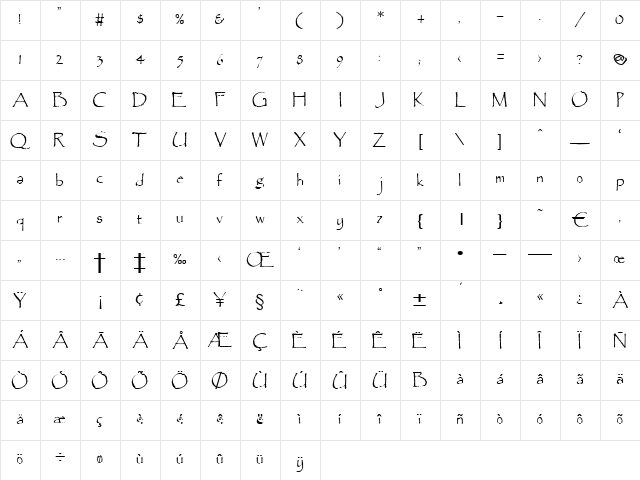
Taurus Regular Free Font
Taurus Regular
Taurus Family
Taurus Regular
Design Context for Taurus
Taurus is a composed and adaptable typeface that performs quietly and consistently across a wide range of design contexts.